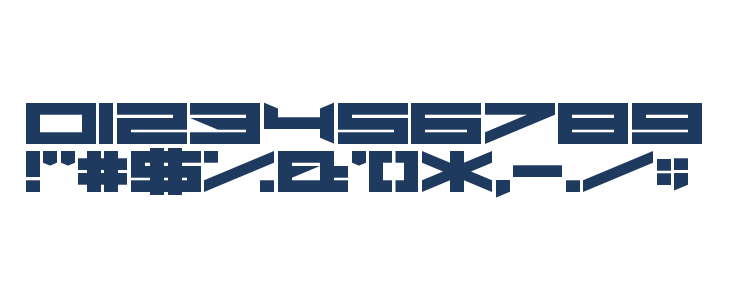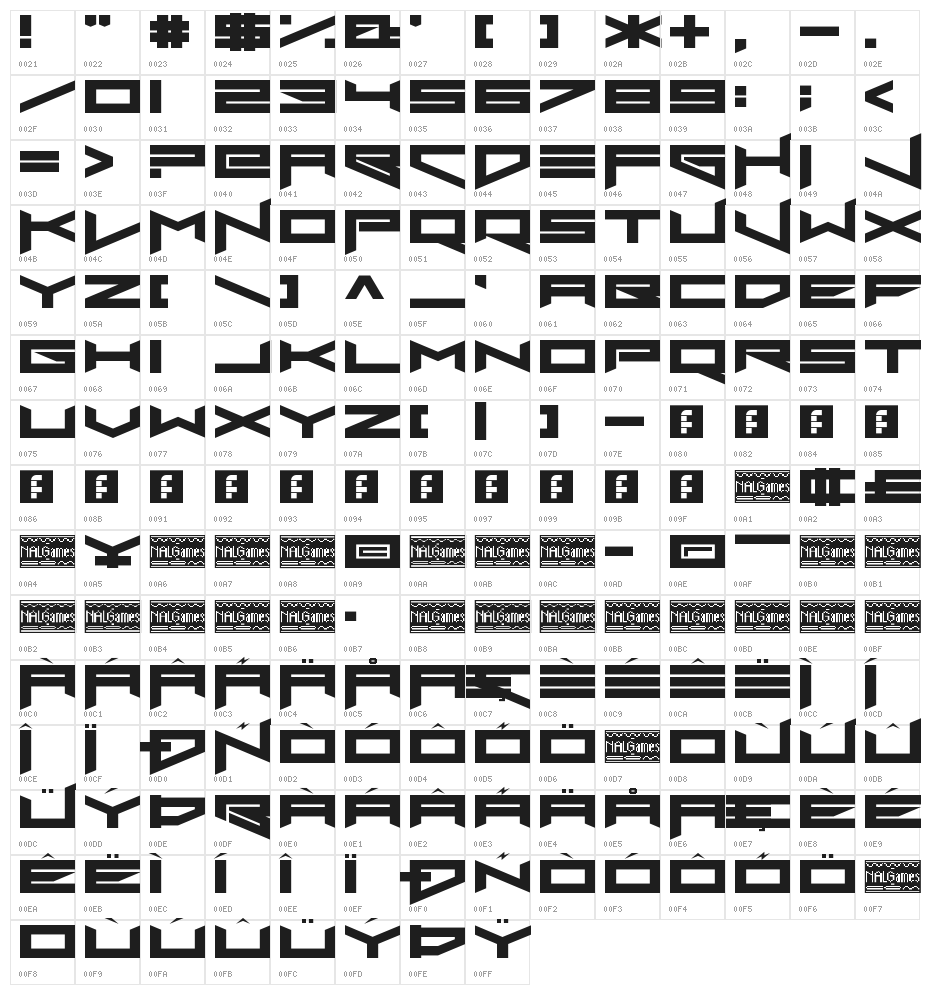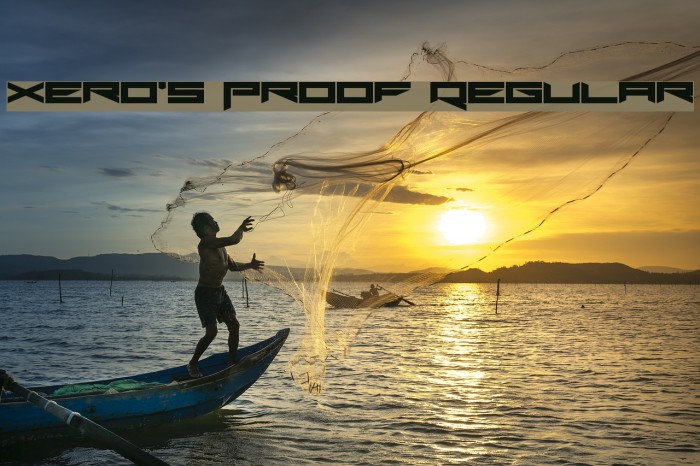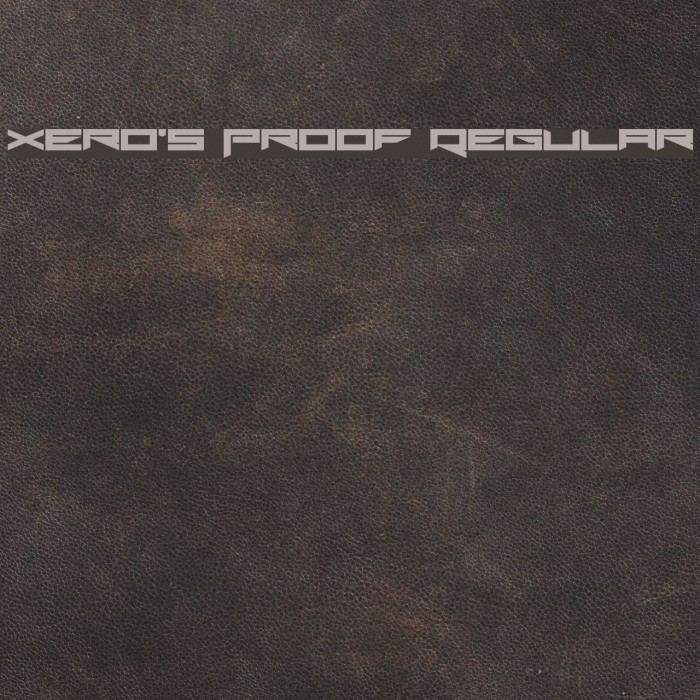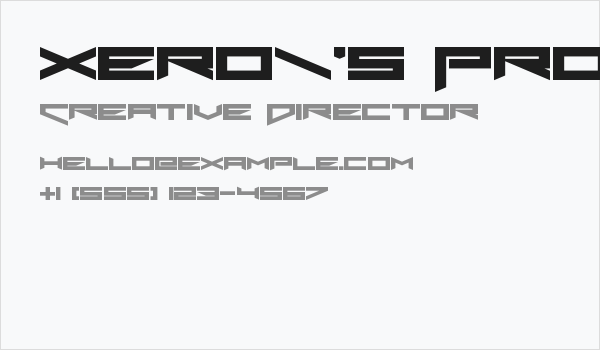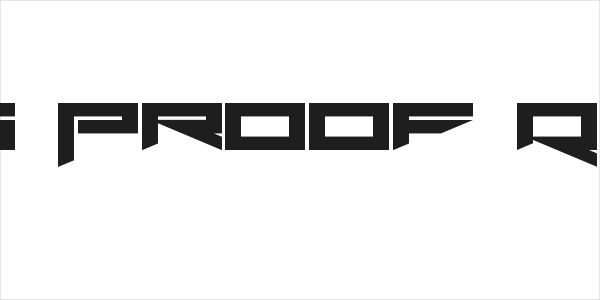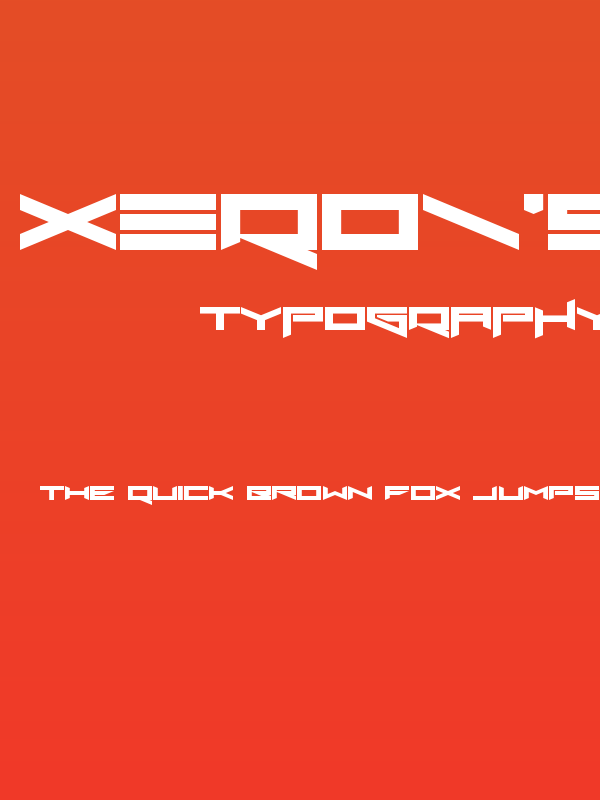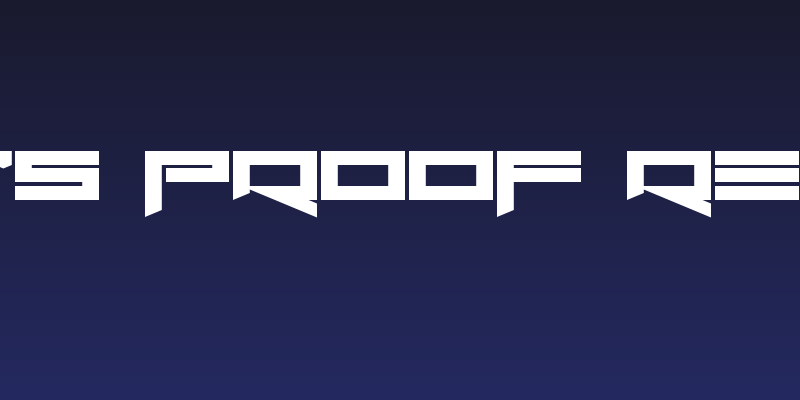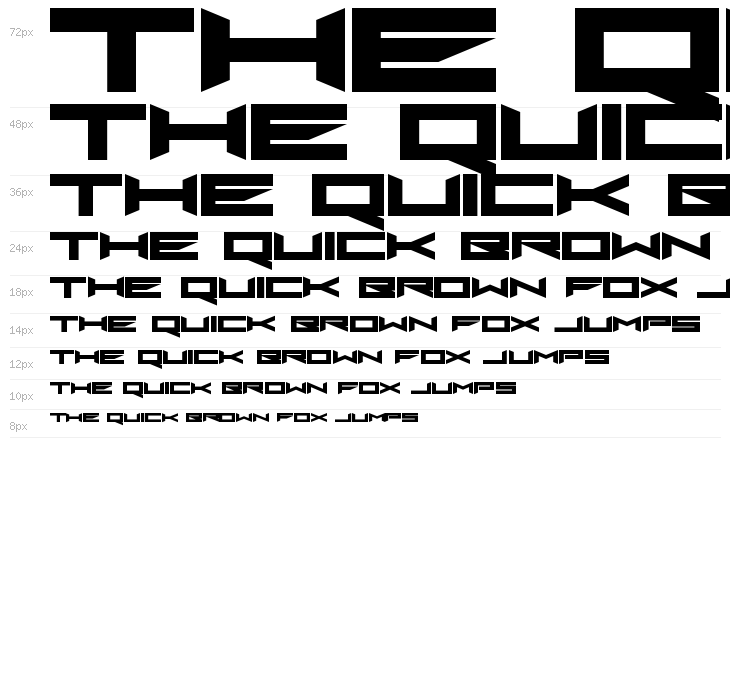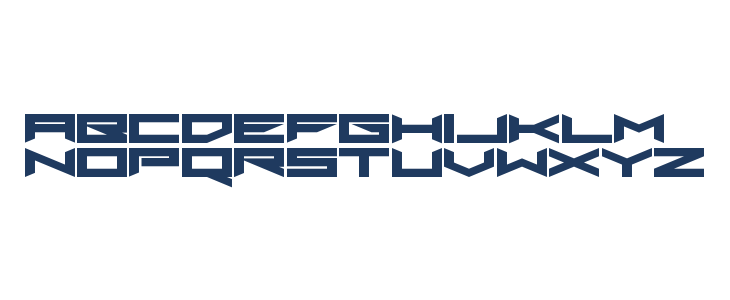
Xero's Proof Regular Font
Xero's Proof Regular Description
This font features a futuristic and angular design, characterized by sharp edges and geometric shapes. The uppercase and lowercase letters share a consistent style, with a bold and striking appearance. The numbers and special characters maintain the same angular aesthetic, making the font cohesive across all characters. Its unique design makes it stand out, suitable for projects that require a modern and edgy look.
| Proposed Projects | Ideal for sci-fi themed projects, video game titles, tech branding, and modern posters. |